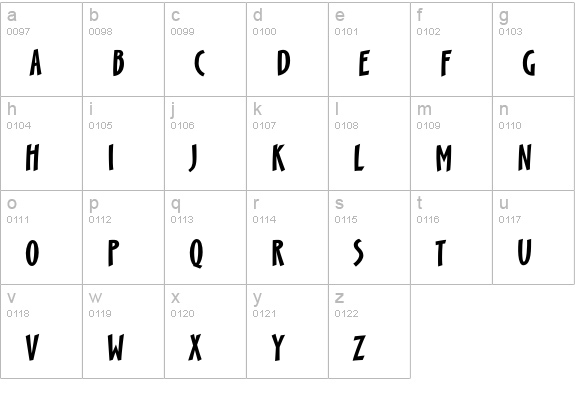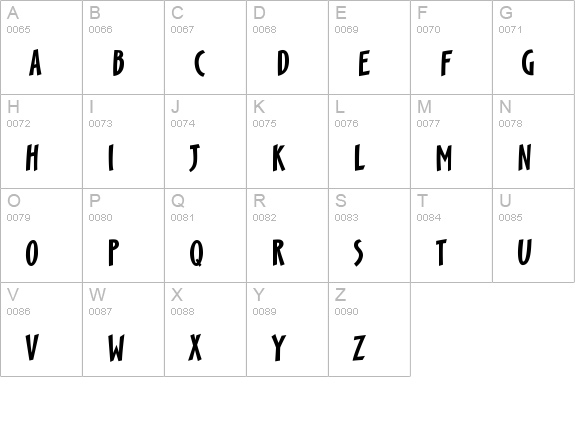
Scamp-Fat Font Details
Introducing Scamp-Fat font, a stunning typeface that effortlessly combines boldness and elegance. With its unique and eye-catching design, Scamp-Fat is perfect for making a statement in your projects. Whether you're creating captivating headlines or designing striking logos, this font is guaranteed to leave a lasting impression. Scamp-Fat is incredibly versatile, allowing you to use it across a wide range of design applications. Its thick and heavy strokes lend a sense of power and authority, while its rounded edges give it a touch of playfulness and charm. This combination makes Scamp-Fat a go-to choice for both professional and creative projects. But what truly sets Scamp-Fat apart is that it is freely available to download at FontsMarket.com. That's right, you can enhance your designs with this exceptional font without having to spend a dime. This means that you can enjoy the benefits of a premium typeface without breaking the bank. Downloading Scamp-Fat is quick and easy, ensuring that you can get started on your projects right away. Its extensive character set supports multiple languages, making it accessible to a global audience. Whether you're designing for print or digital platforms, Scamp-Fat will effortlessly adapt to your needs. So why wait? Elevate your designs with the captivating and freely available Scamp-Fat font. Download it today at FontsMarket.com and unlock a world of possibilities for your creative endeavors.